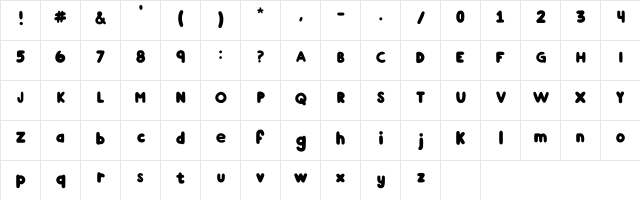
Singularity Regular
Design Context for Singularity Typeface
Singularity is a composed and adaptable typeface that performs quietly and consistently across a wide range of design contexts.